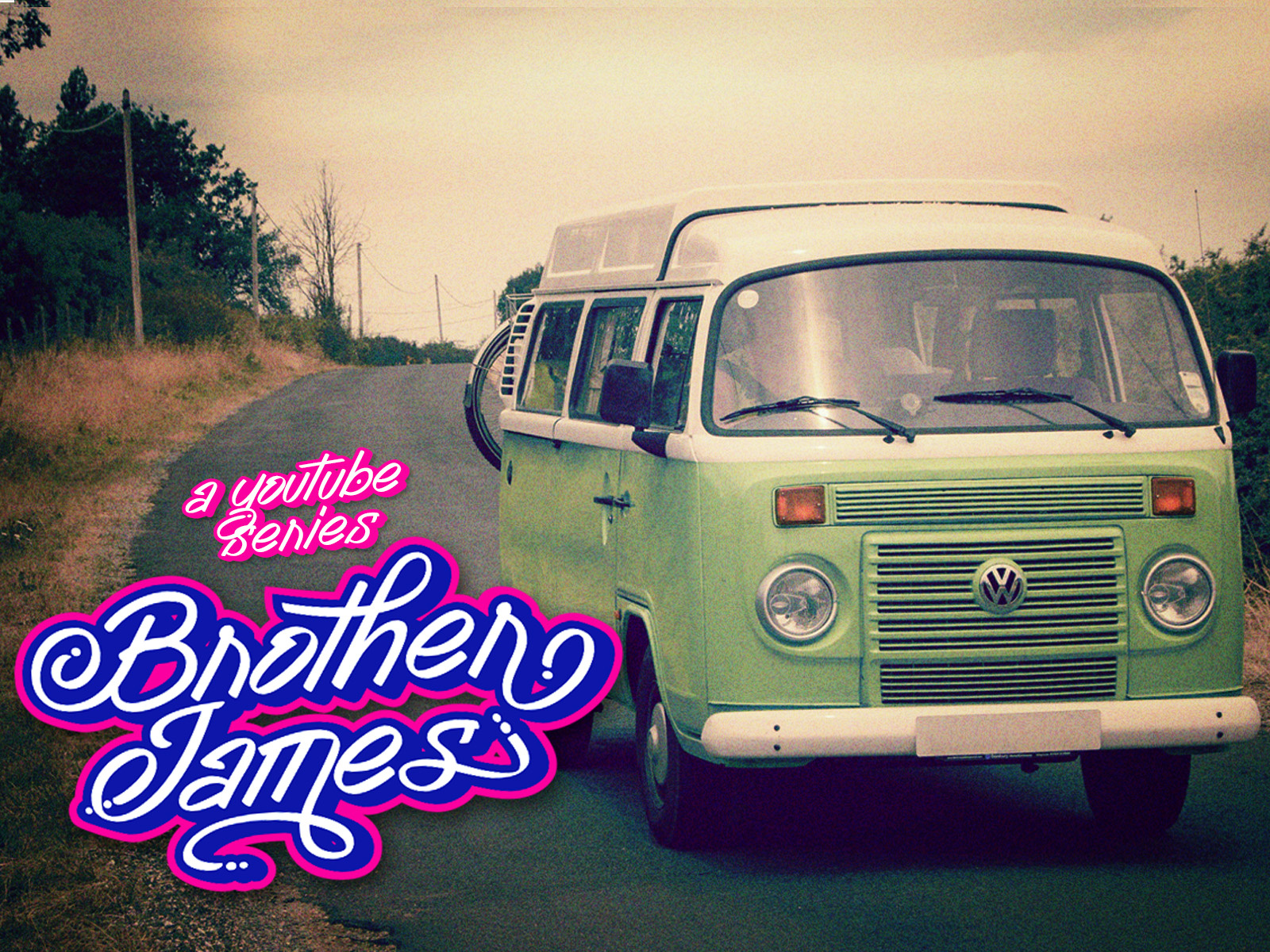
Tendencies (Font Preview)
Finally this font is complete. Making this Font is enough to make my two index fingers ache until now (two months).
You can access all of the glyphs and swashes with ease! It features a varying baseline, smooth lines, gorgeous glyphs and stunning alternates.
Tendencies works great in any branding, board, logos, apparel, product packaging, magazines, label, films, stationary, poster, etc. and any projects that need street art taste.